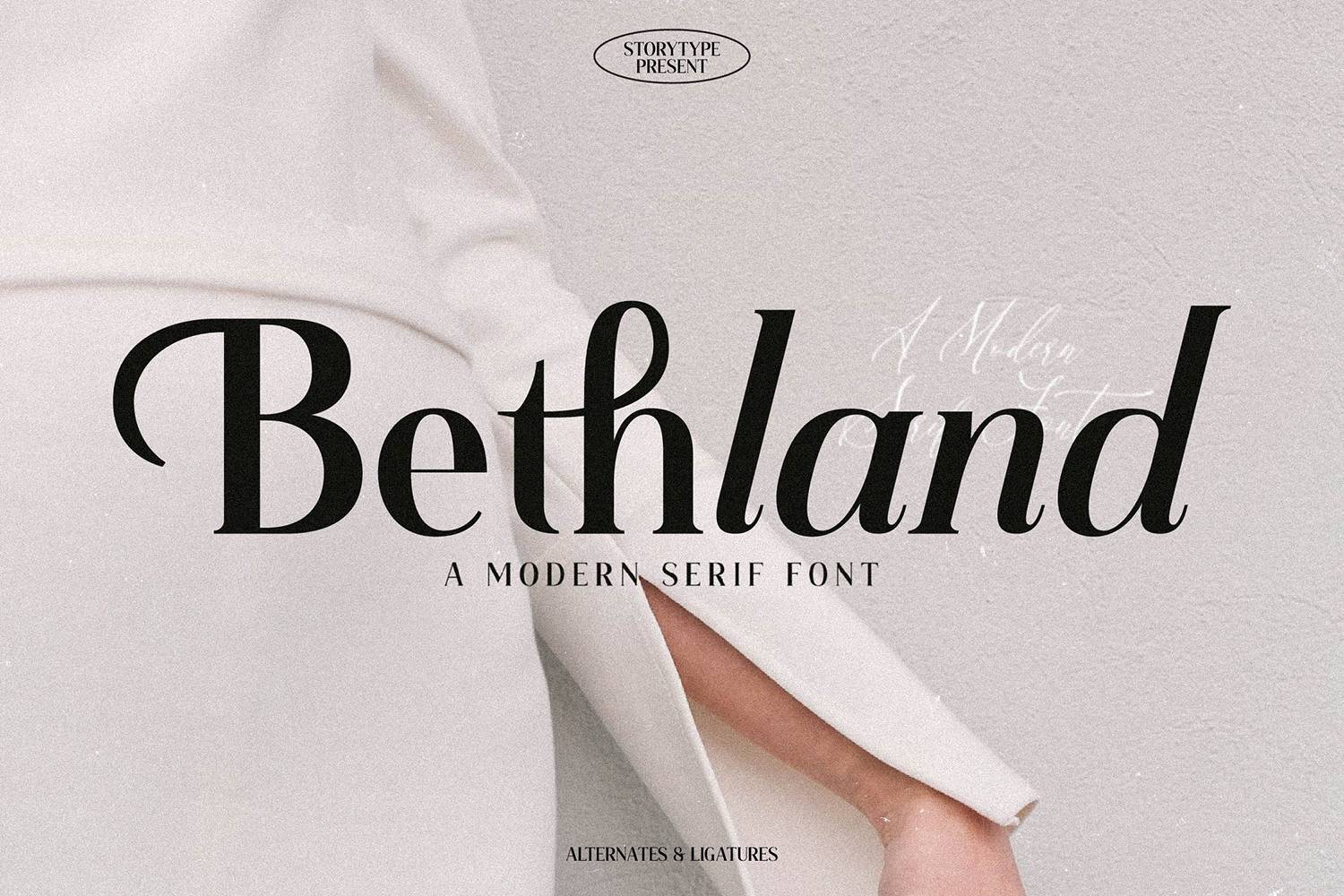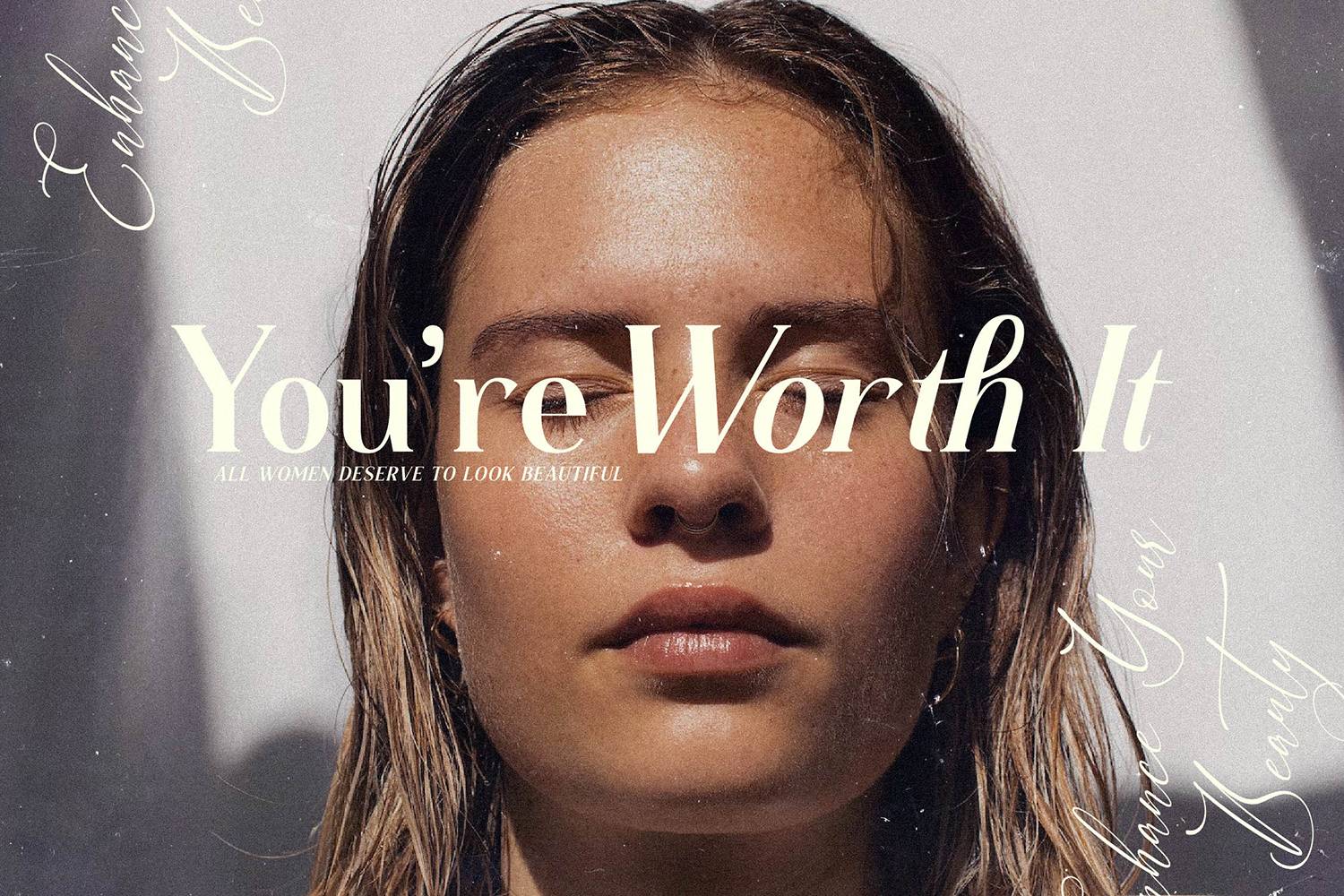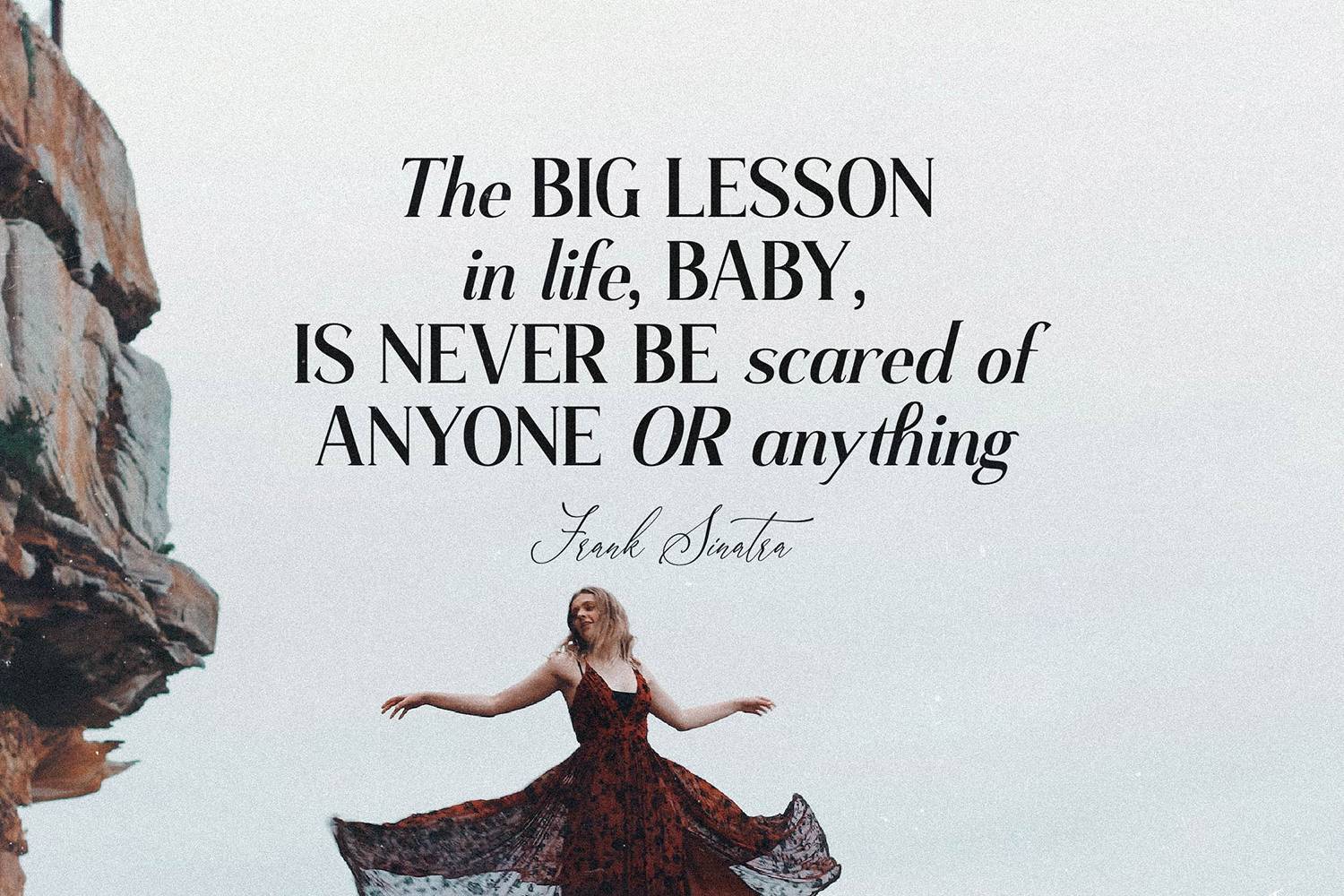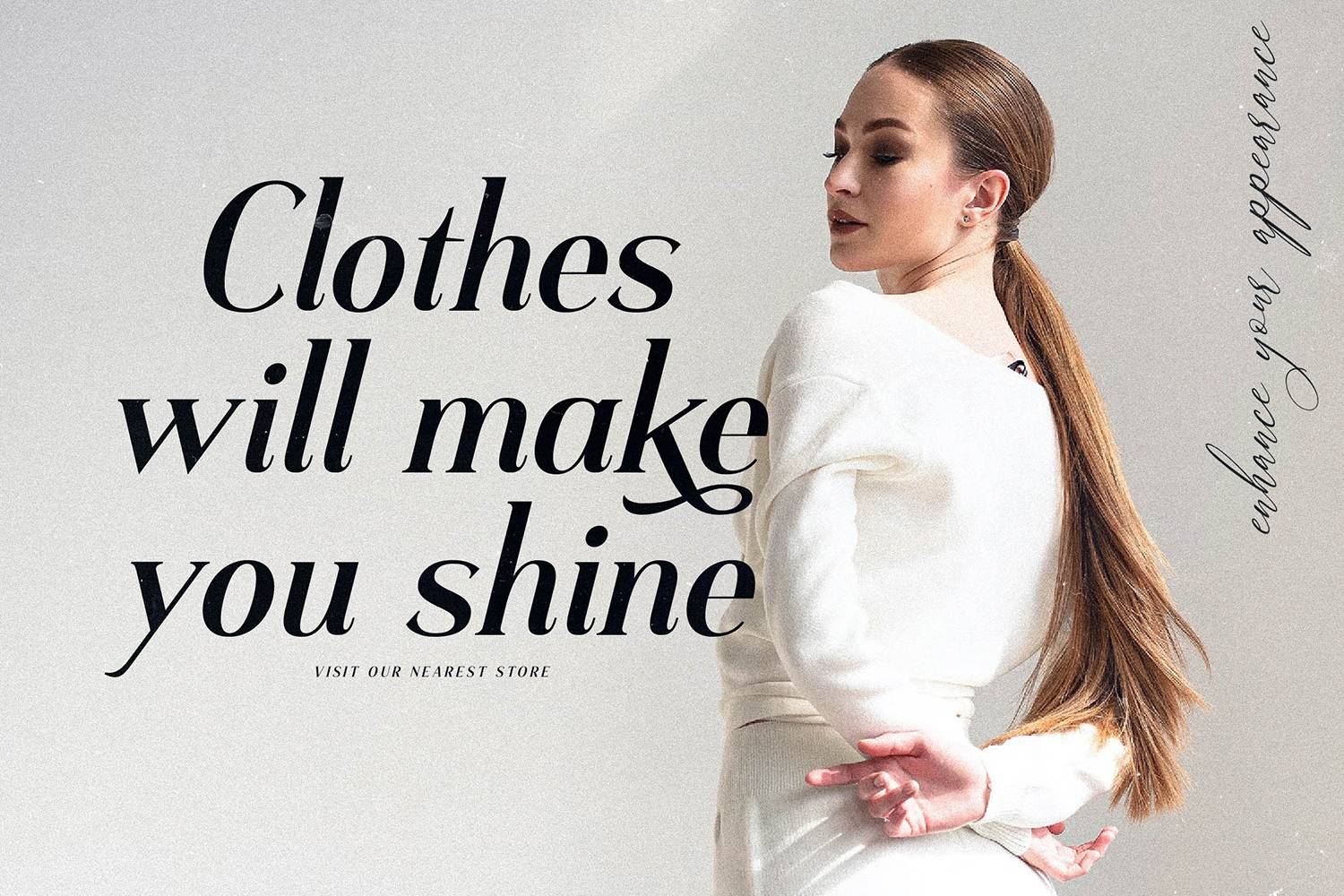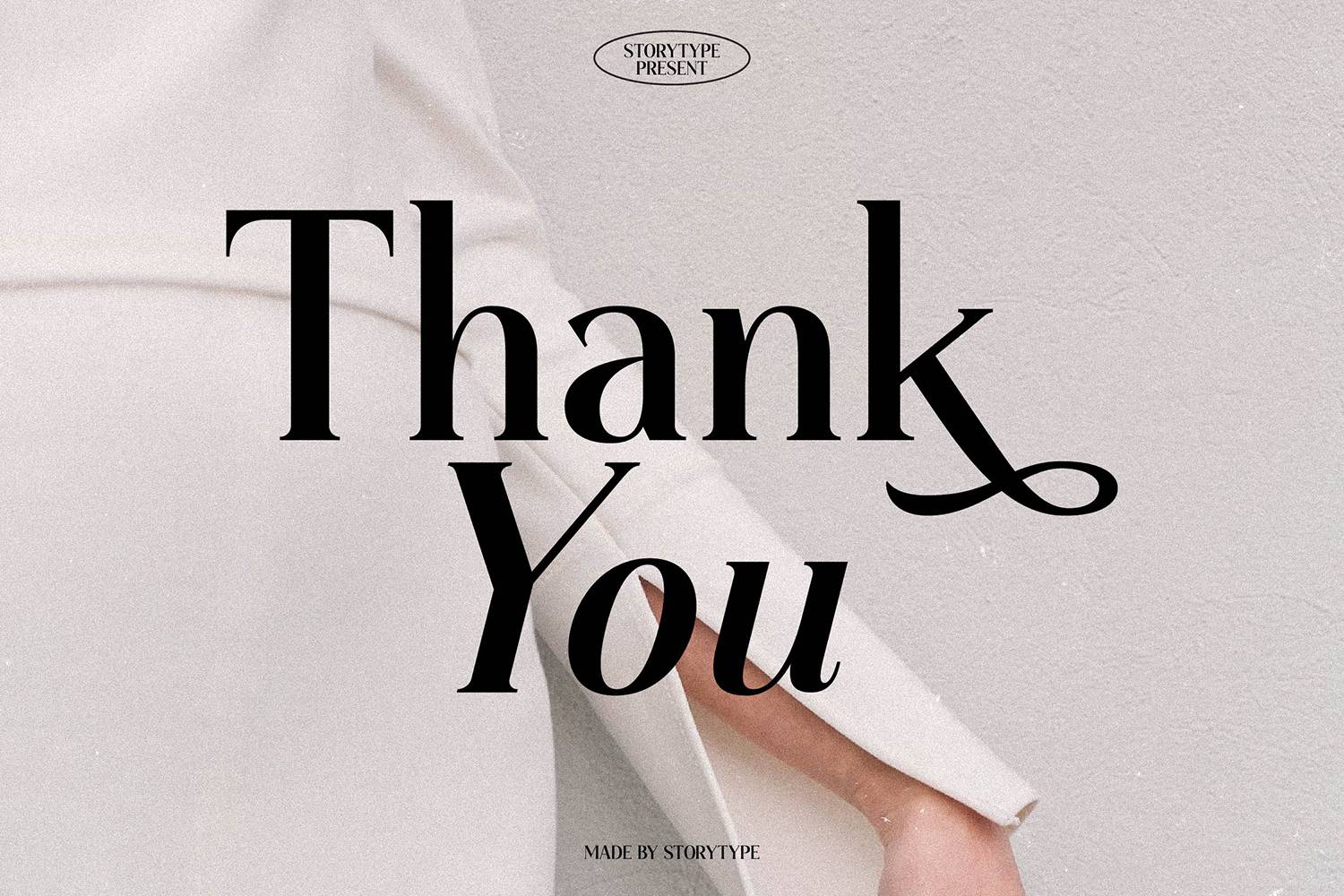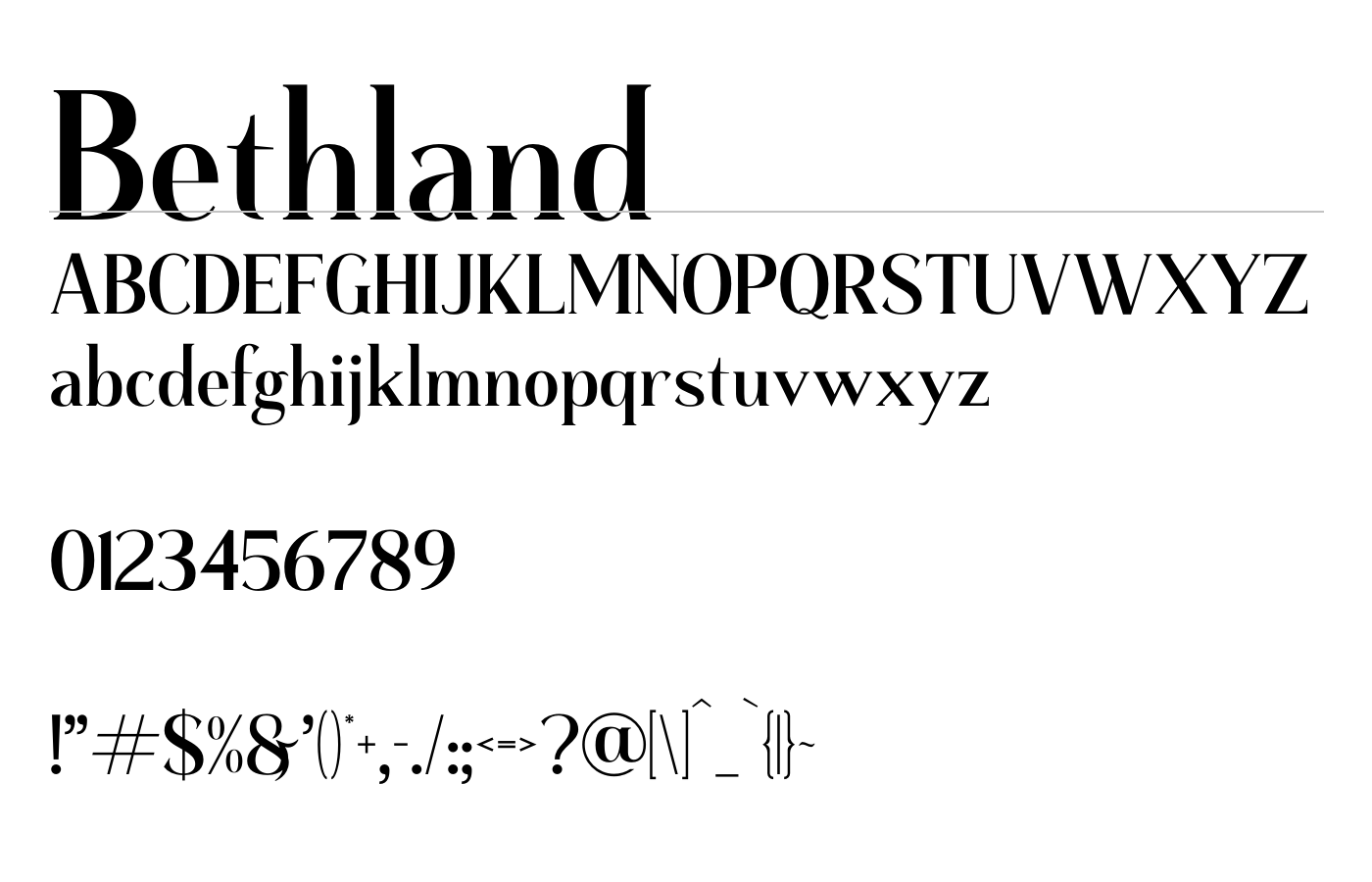
Bethland is a refined serif font with a classic, elegant feel, featuring a high contrast between thick and thin strokes and delicate, bracketed serifs. Its narrow proportions and careful details, such as the double-story 'a' and 'g,' give it a sophisticated, timeless character perfect for luxury branding, editorial headlines, and upscale packaging. This font works beautifully wherever a polished, formal impression is desired.
Bethland Font
About Bethland Font